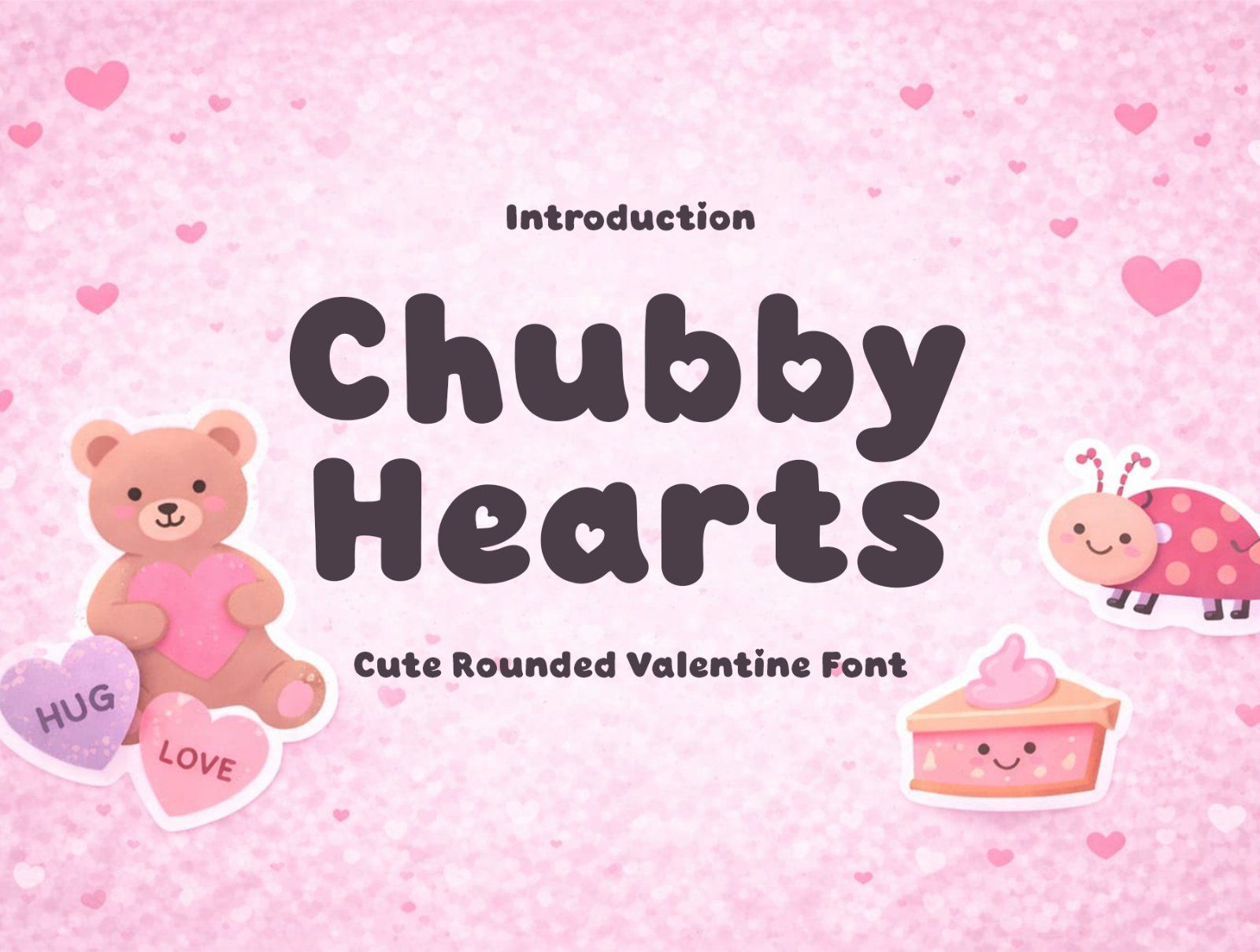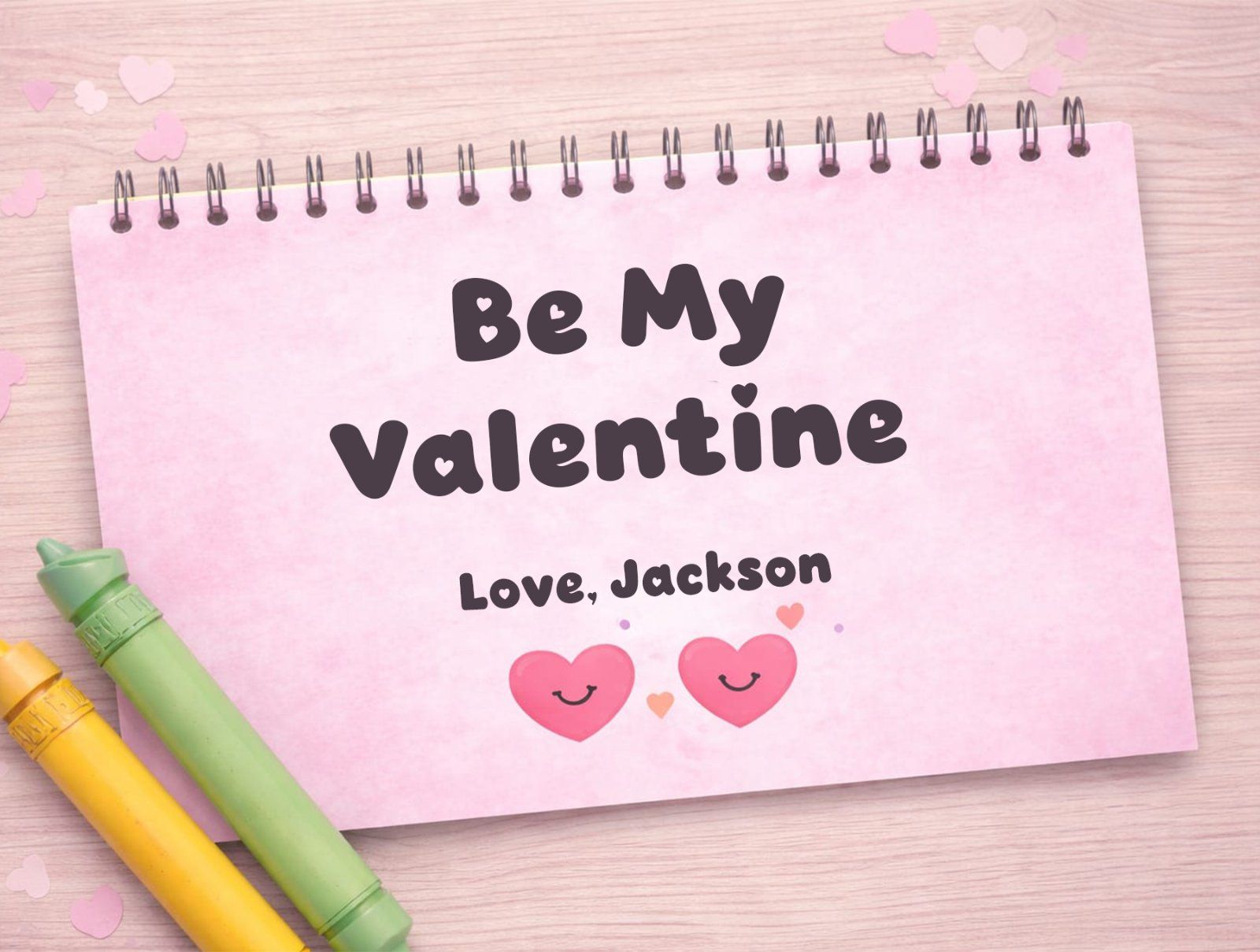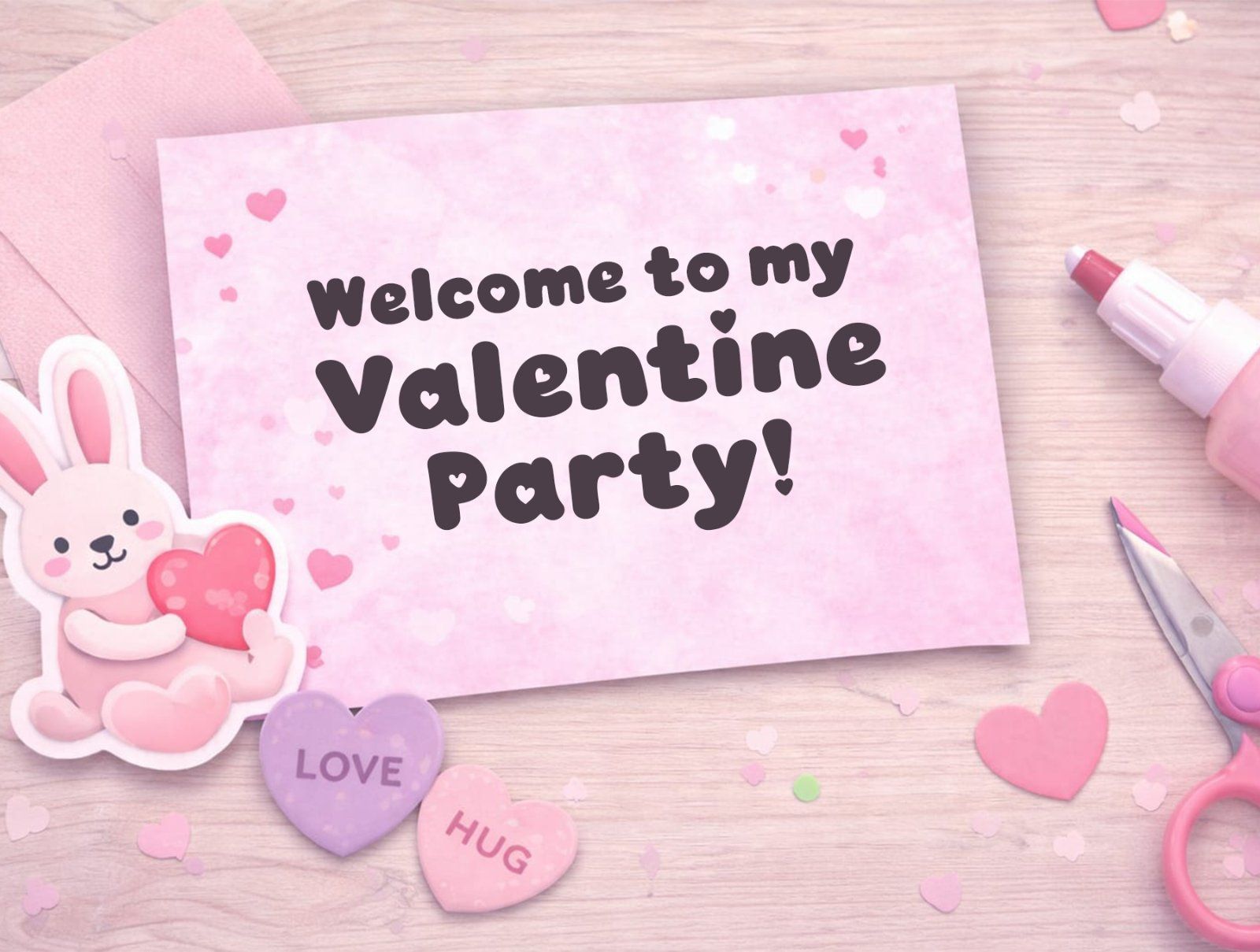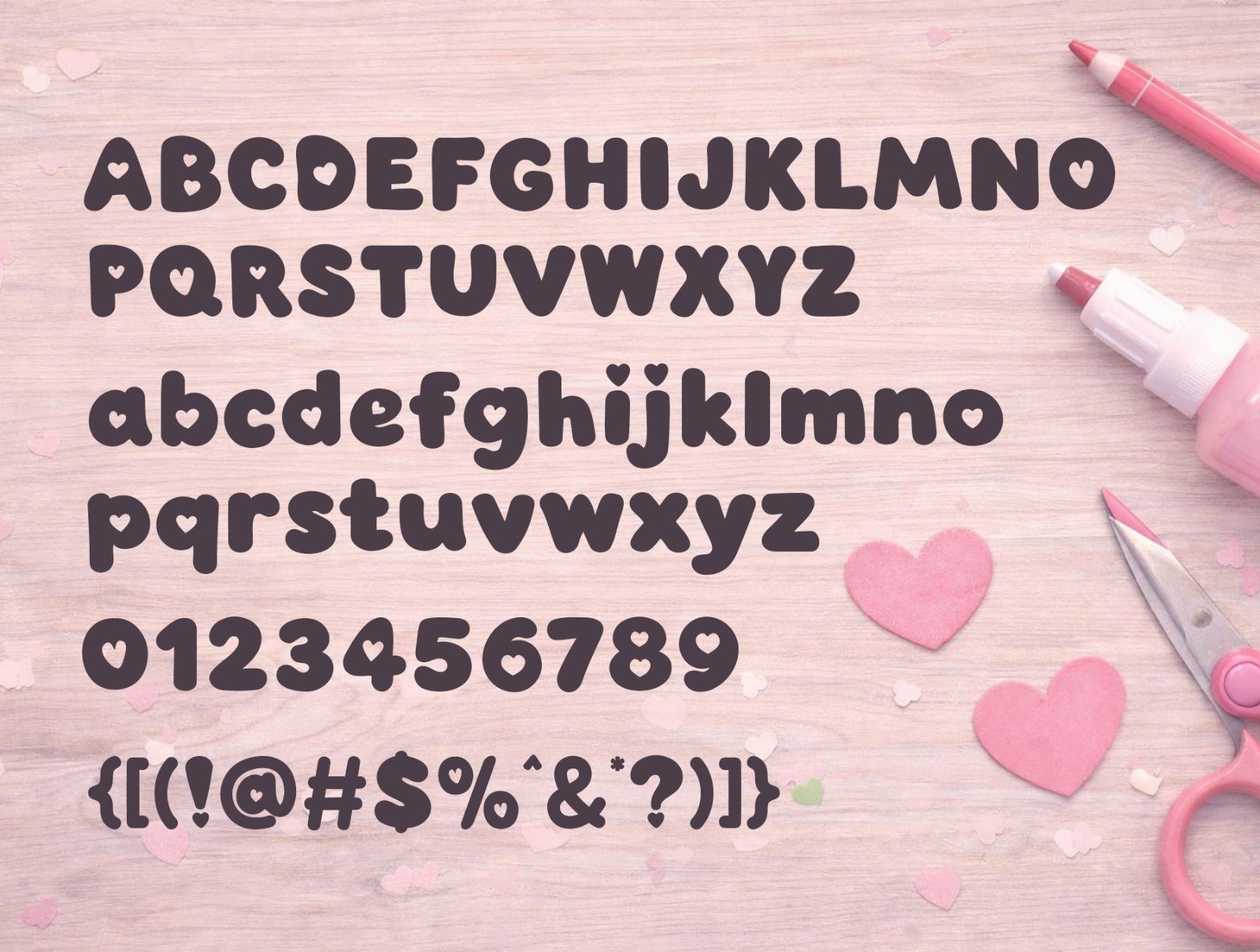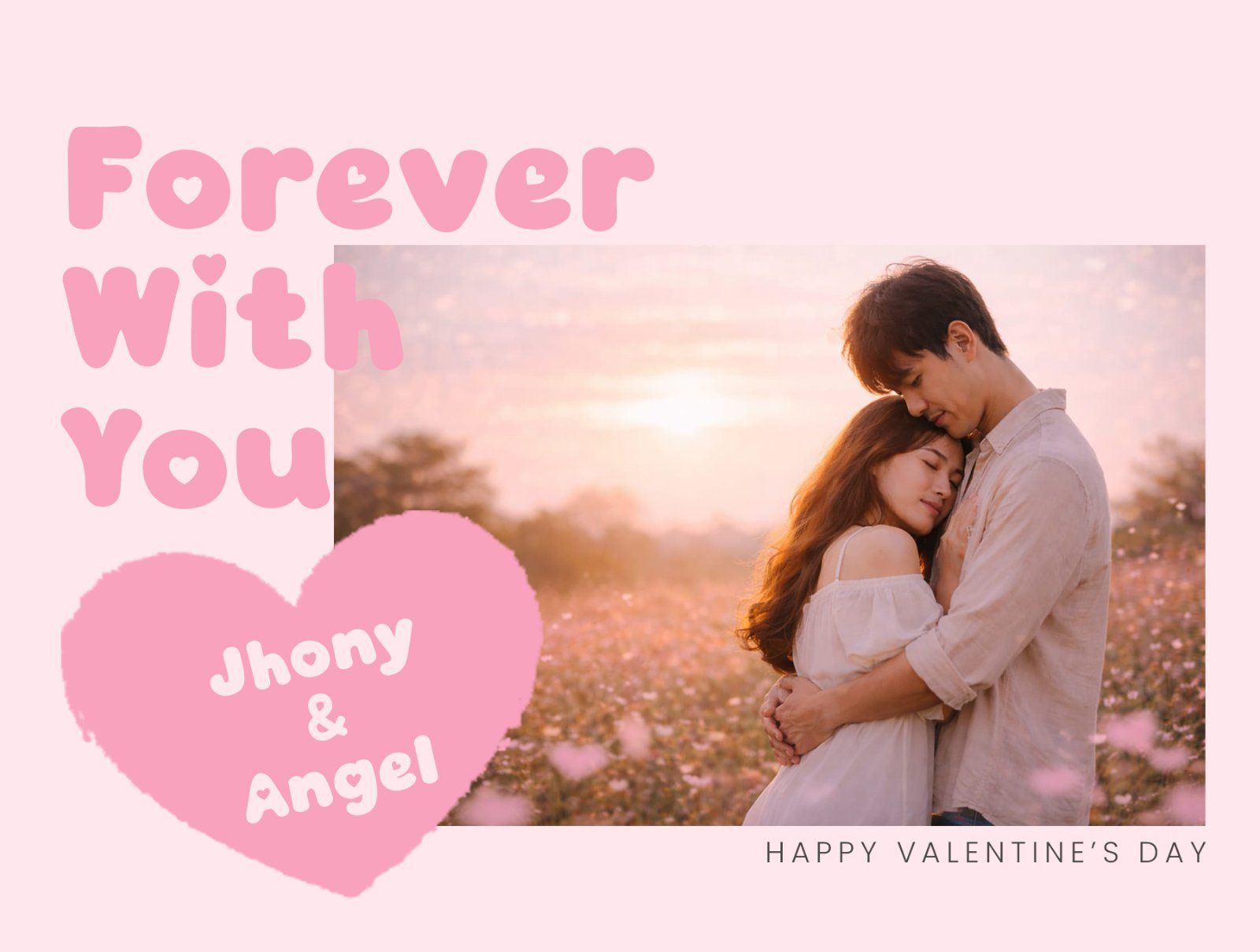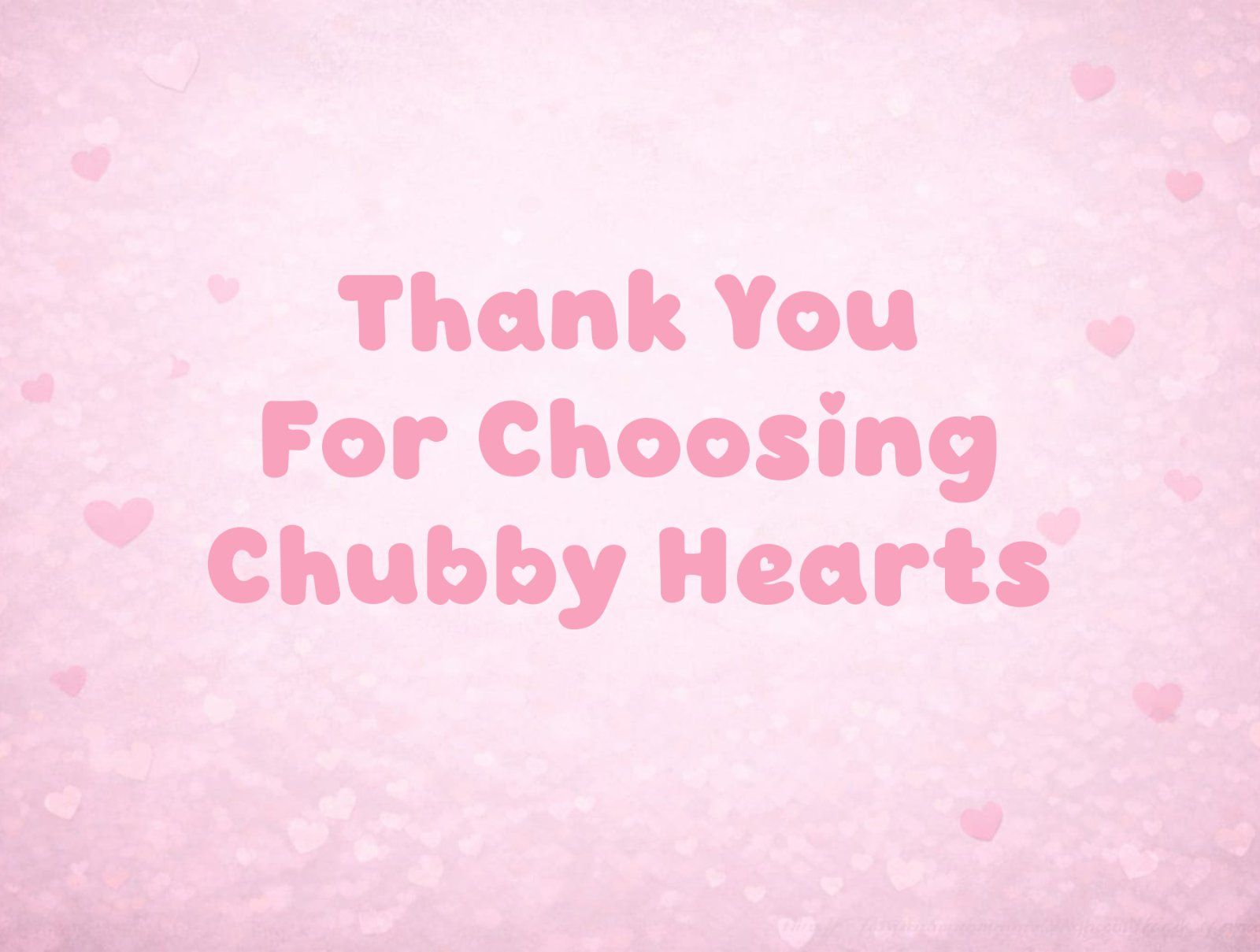
Chubby Hearts is a cute and playful font designed with bold, rounded letterforms and sweet heart details. This font is perfect for Valentine-themed designs and cheerful kids’ projects that need a fun, friendly, and love-filled look.
With its chubby shapes and smooth curves, Chubby Hearts is easy to read and instantly eye-catching. It works beautifully for crafting projects, Valentine cards, stickers, Cricut and Silhouette designs, classroom decorations, party invitations, posters, worksheets, and cute love quotes.
This font is ideal for designers, crafters, teachers, and creatives who want to add warmth and charm to their designs. Whether you are creating digital artwork or printable projects, Chubby Hearts helps bring joyful Valentine vibes to every creation. Enhance the Chubby Hearts typeface by using a soft pink and red palette or adding glitter textures to create a truly festive look. Its rounded edges and friendly appearance make it highly legible and approachable, ensuring your heartfelt messages are delivered with a smile.
💡 PERFECT FOR
Valentine’s Day projects
Kids crafts & classroom decor
Stickers & printable designs
Cricut & cutting machine projects
Greeting cards & invitations
Posters, worksheets, and quotes
❤️ WHY YOU’LL LOVE IT
Cute & bold rounded style
Sweetheart details
Easy to read and playful
Great for kids and love-themed designs